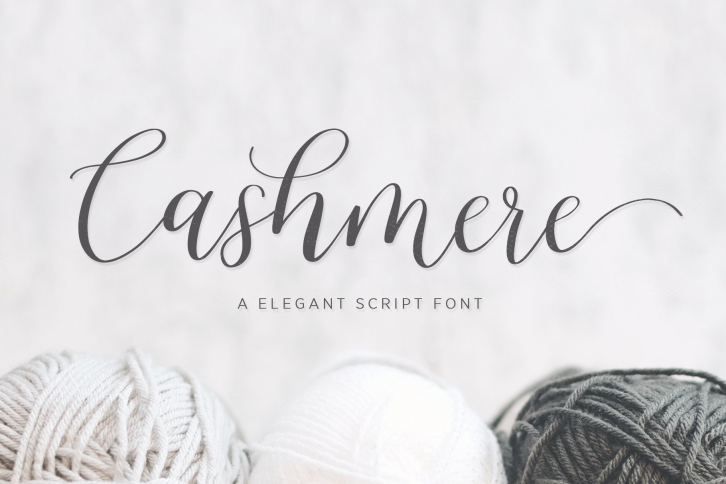
Cashmere Handwritten Font
Cashmere Has Stylistic alternate, ligatures and ending lowercase. and includes uppercase and lowercase letters, numbers and punctuation.
You can create perfect and unique design of your wedding postcard, branding, invitations, quotes, prints, and many more.